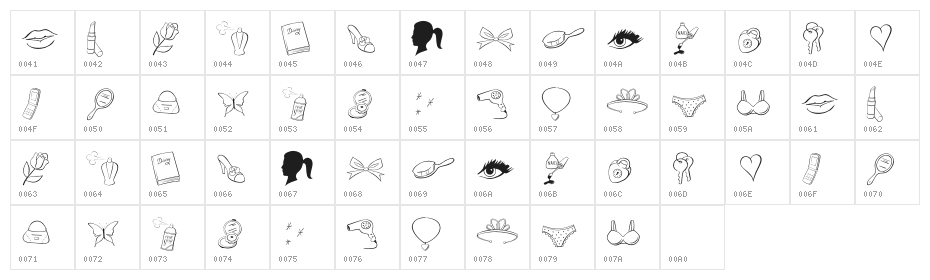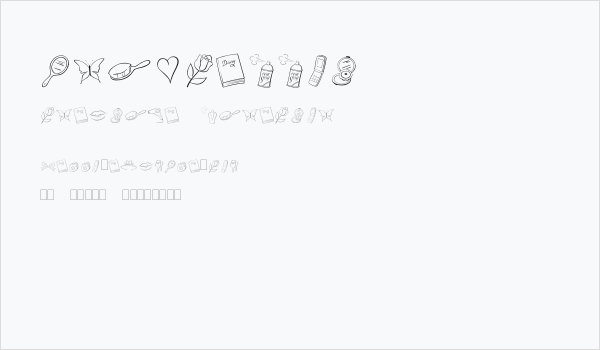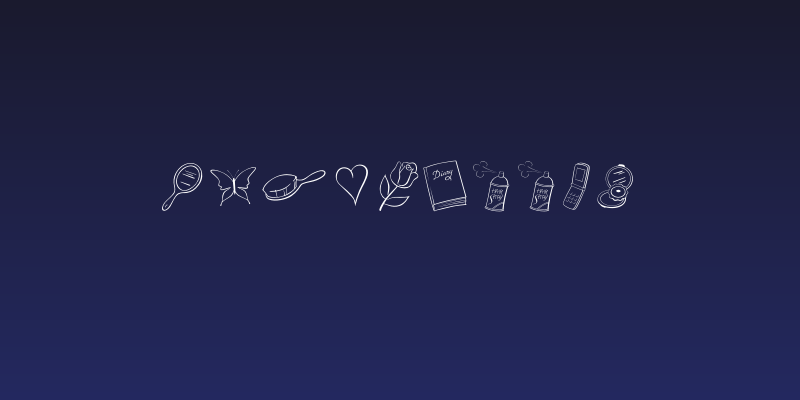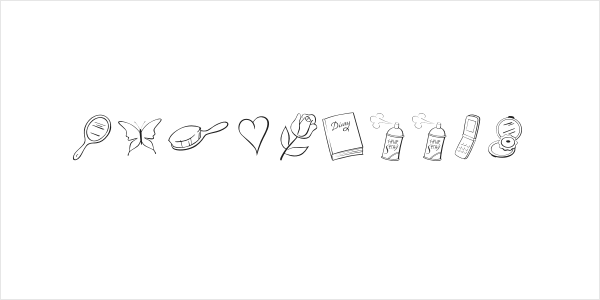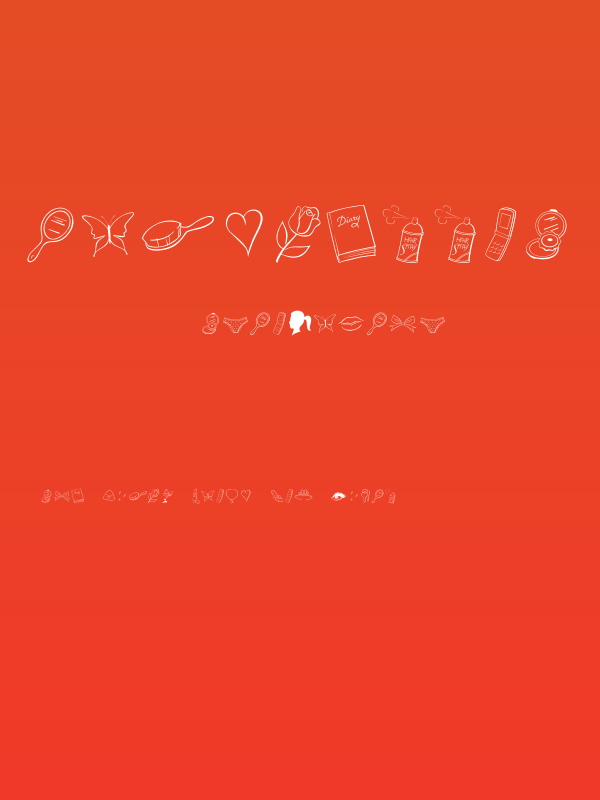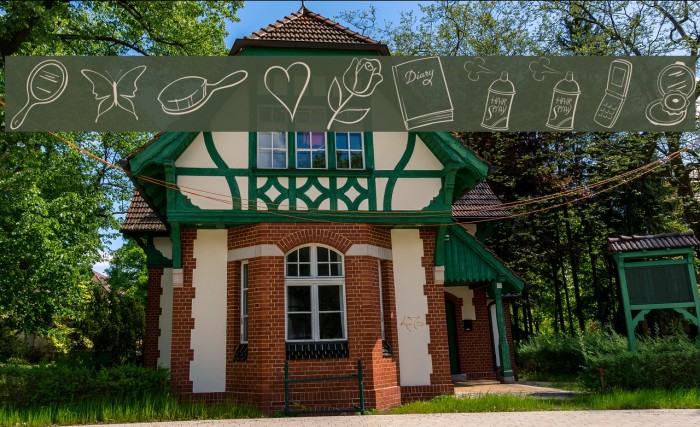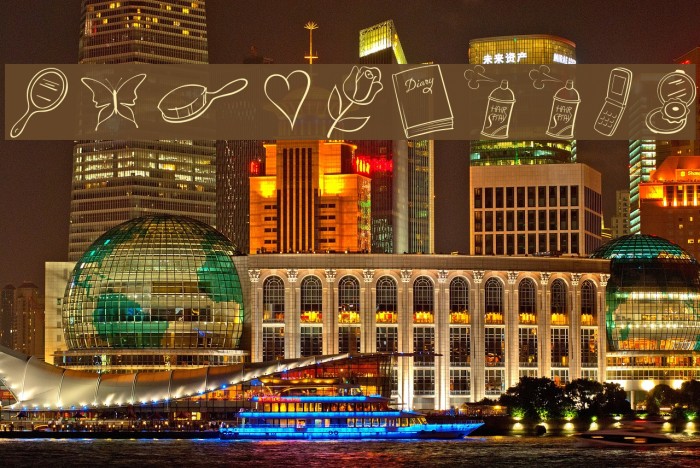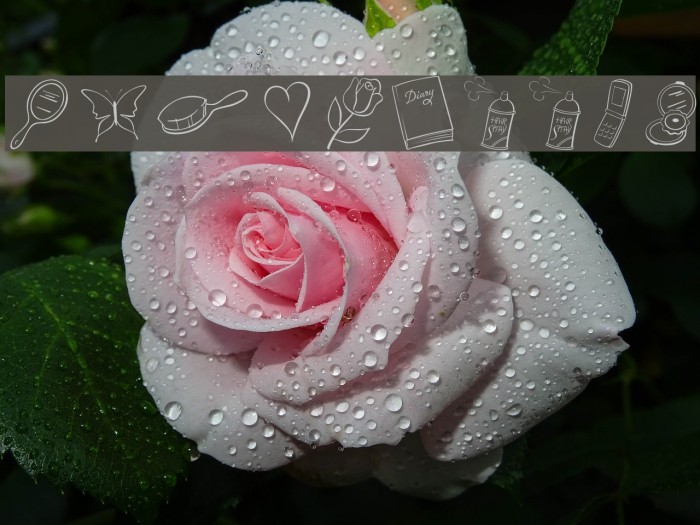
PrincessOT Font
PrincessOT Description
This is not a traditional font but rather a collection of decorative icons and symbols. The imagery includes various feminine and beauty-related items such as lipstick, perfume, a diary, a silhouette of a woman, bows, mirrors, and other accessories. Each symbol is intricately designed with a playful and whimsical style, emphasizing elegance and charm. The icons are outlined with clean lines and minimal shading, making them suitable for decorative purposes. These symbols are more illustrative and are not intended for textual representation.
| Use Case | Decorative elements, branding, graphic design |
| Proposed Projects | Ideal for use in beauty or fashion-related graphic design projects, such as branding for cosmetics, beauty blogs, or decorative elements in fashion magazines. |